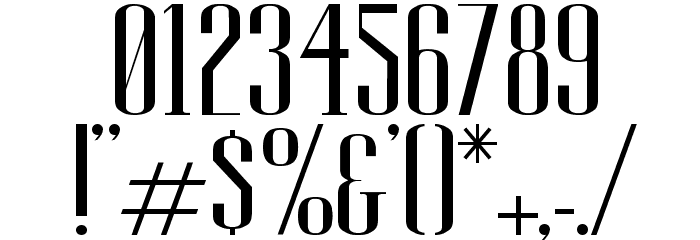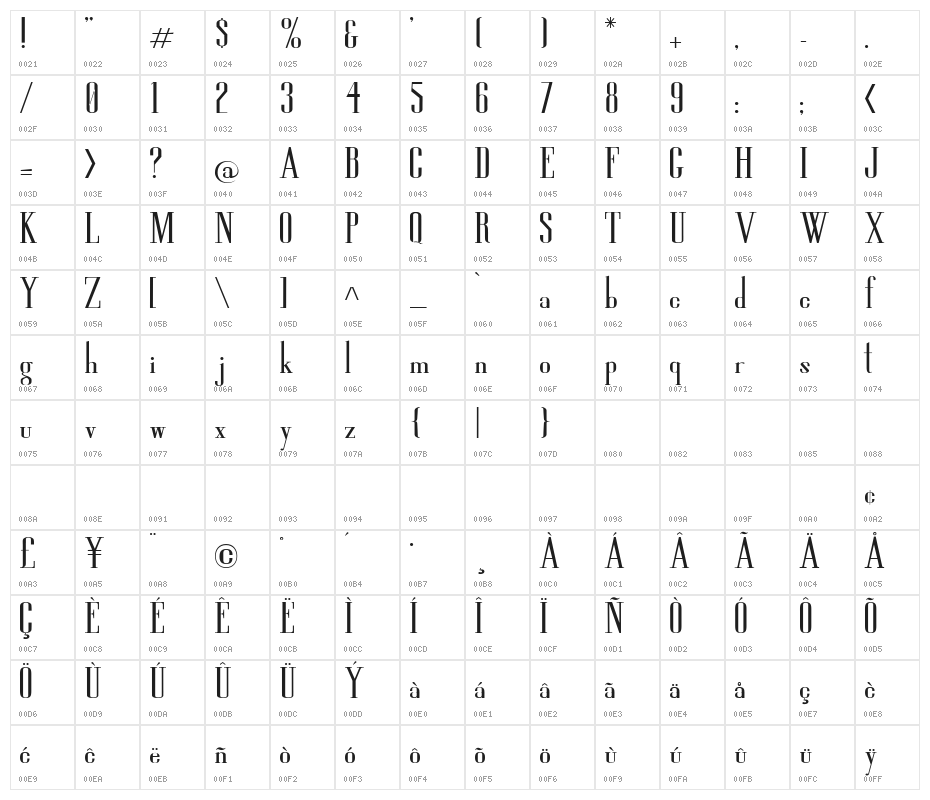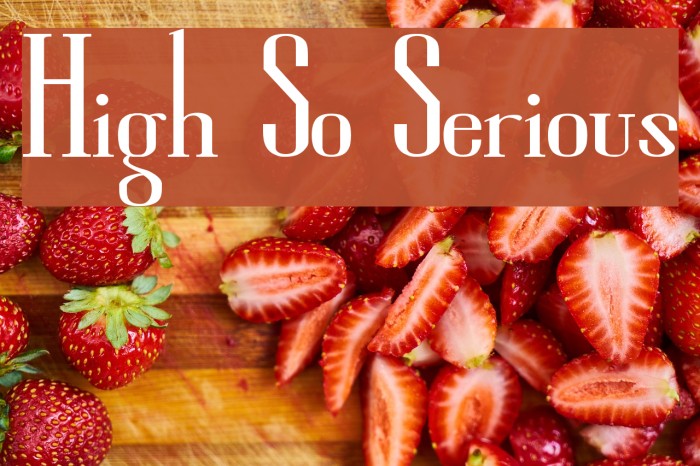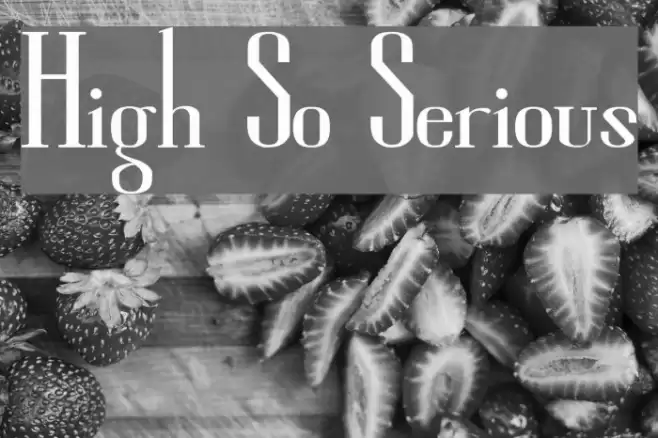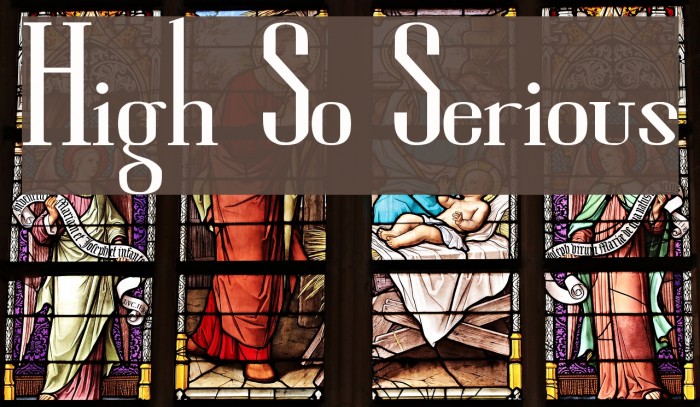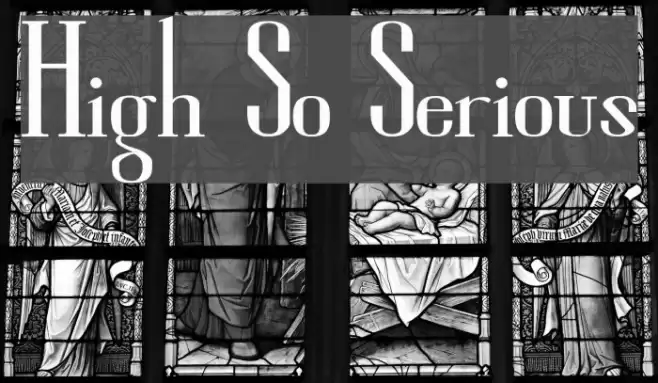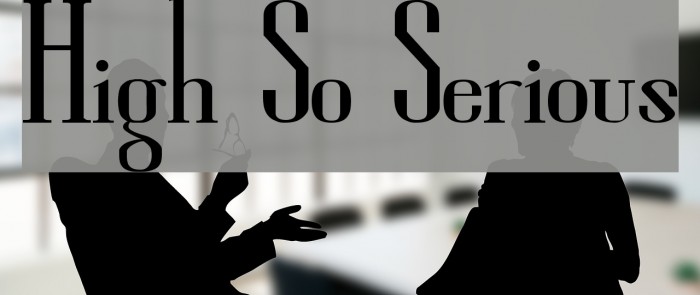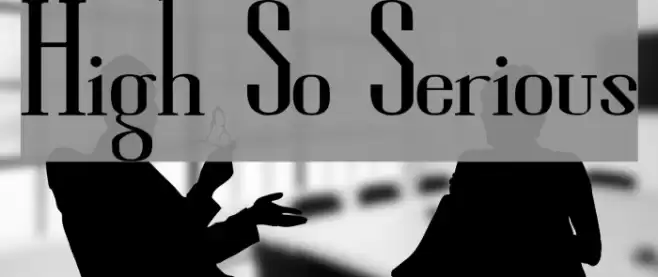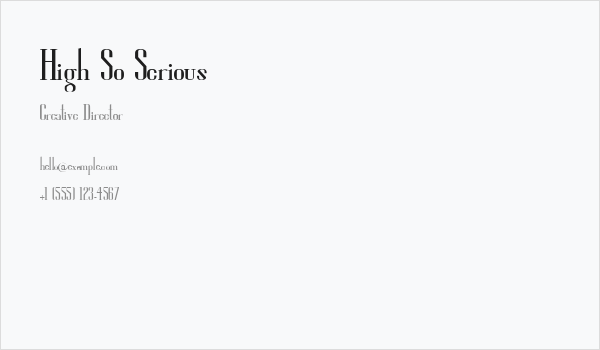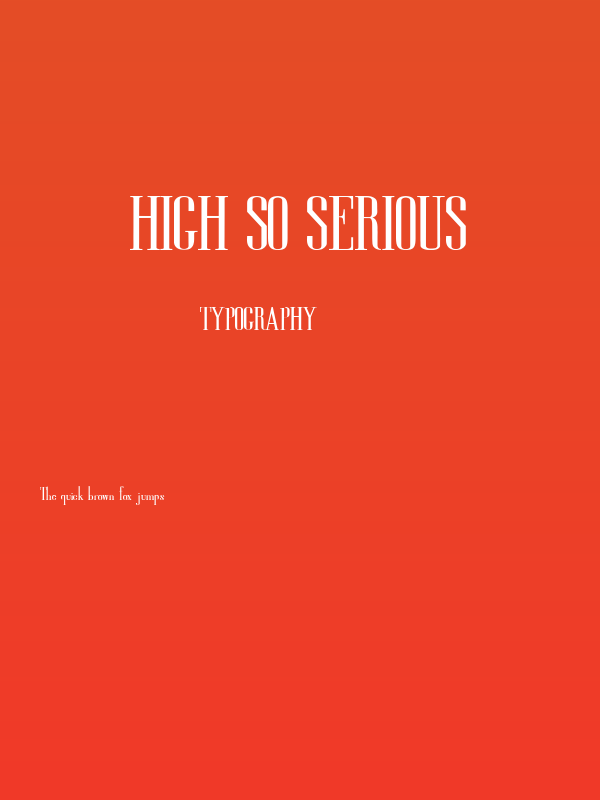
High So Serious Font
High So Serious Description
This font features a striking and elegant design with tall, narrow letters that exude sophistication. The uppercase characters are particularly elongated, giving a sense of grandeur and formality. The lowercase letters maintain a consistent style, with some unique flourishes that add character. The numbers are bold and clear, ensuring readability. Special characters are designed with the same attention to detail, making them seamlessly integrate with the rest of the font. The overall aesthetic is both modern and classic, making it versatile for various applications.
| Proposed Projects | Ideal for luxury branding, editorial design, fashion magazines, and high-end product packaging. |